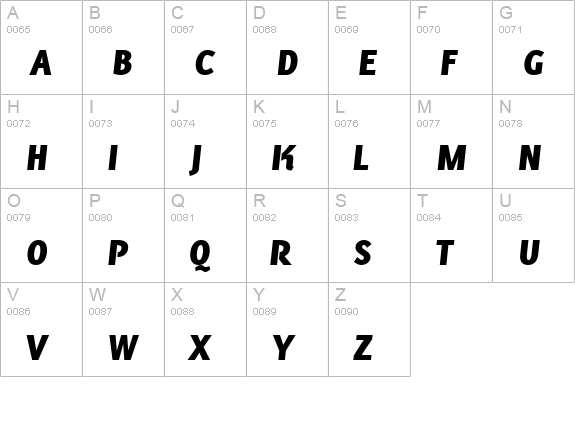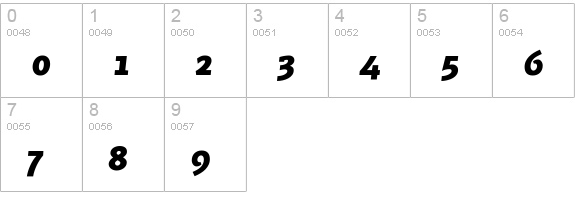
PFMuse-BlackItalic Font Details
The PFMuse-BlackItalic font is a stylish and sophisticated typeface that exudes elegance and modernity. Its sleek design and bold strokes make it perfect for adding a touch of class to any project. The italicized version of this font adds a unique flair and creates a sense of movement and dynamism. What's even better is that this stunning font is available for free download at FontsMarket.com. Whether you're working on a professional design project or simply want to elevate your personal creations, the PFMuse-BlackItalic font is a versatile choice that will make your text stand out. Add a touch of sophistication to your work with this beautiful font today!